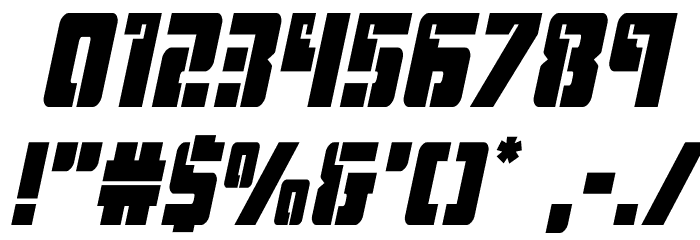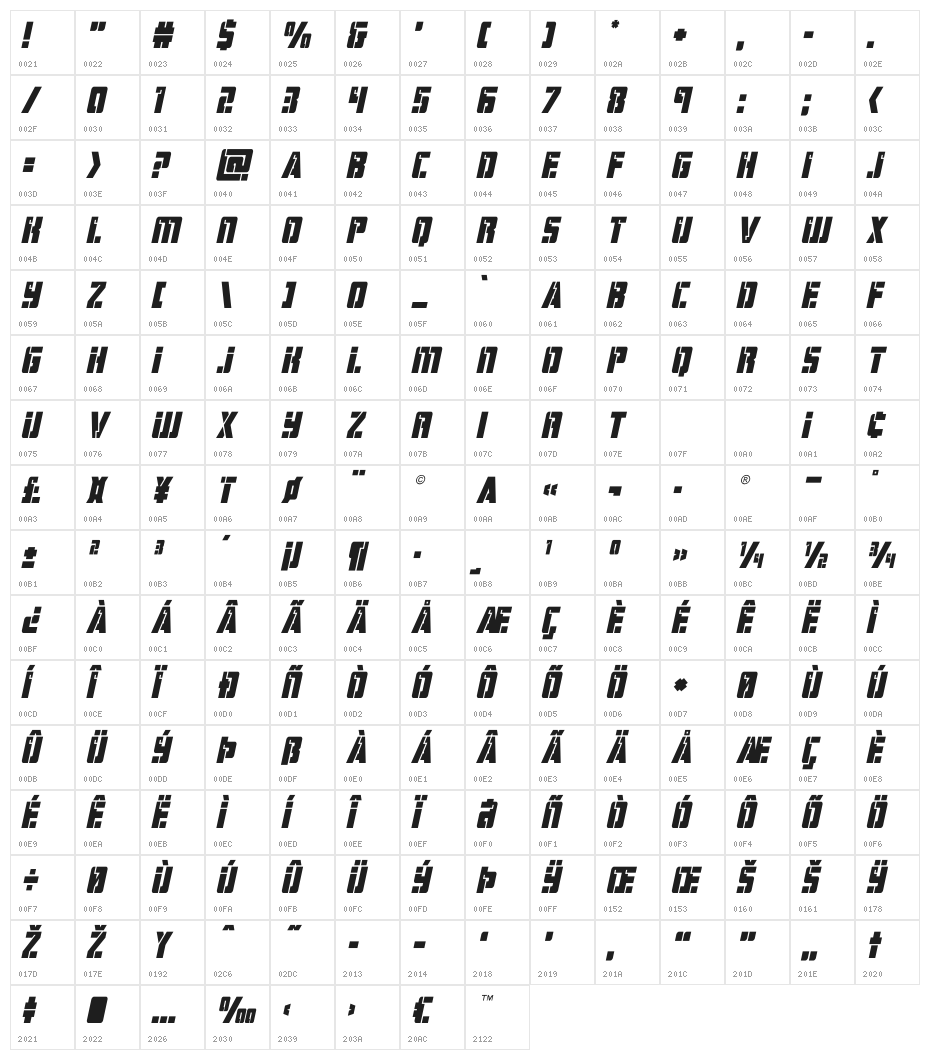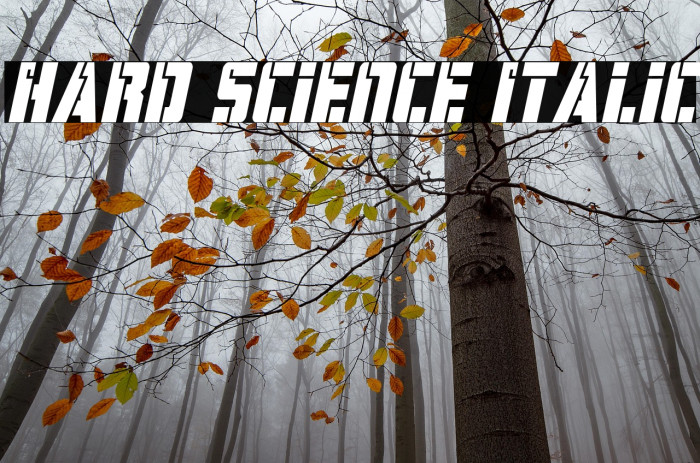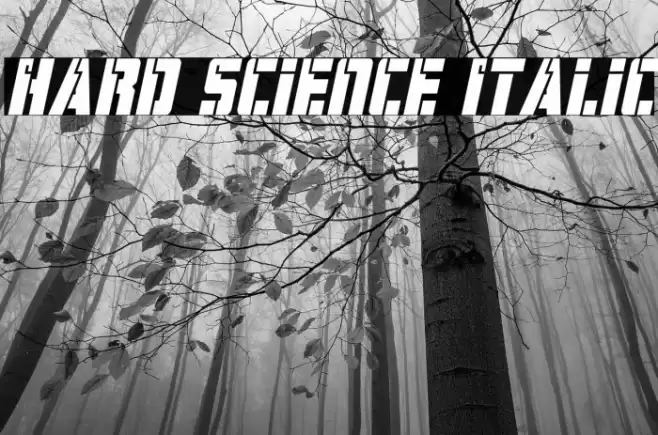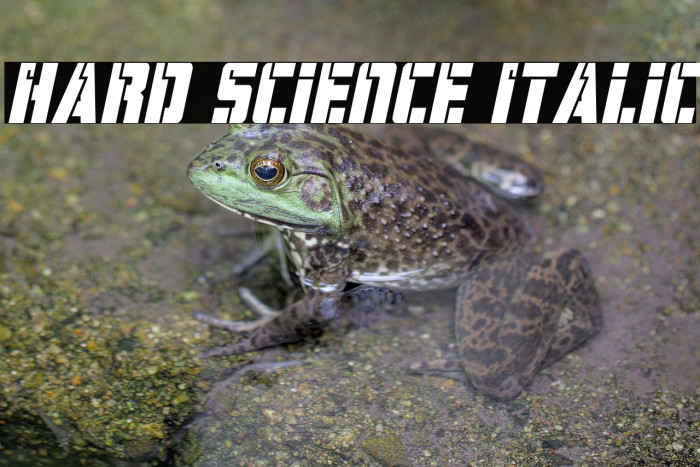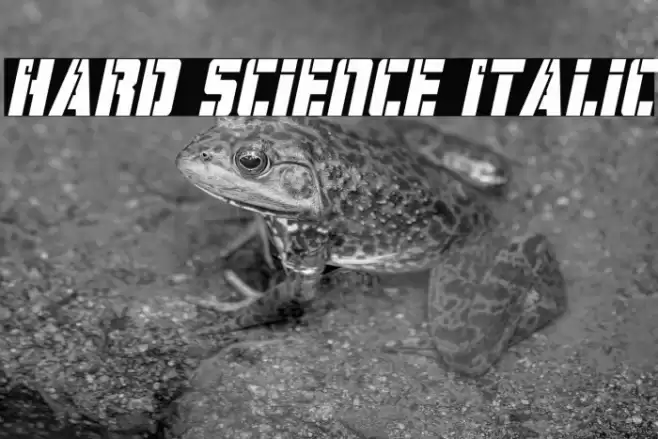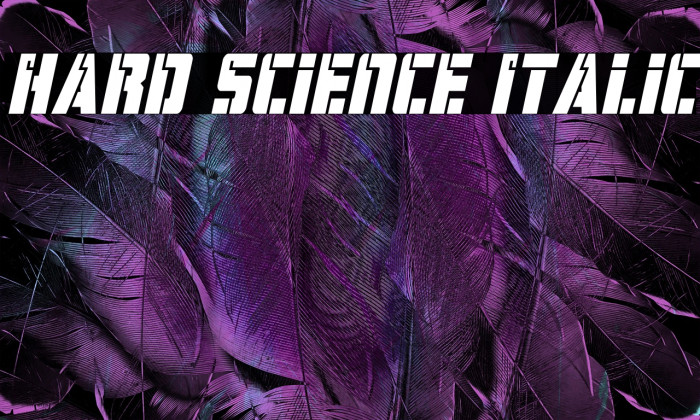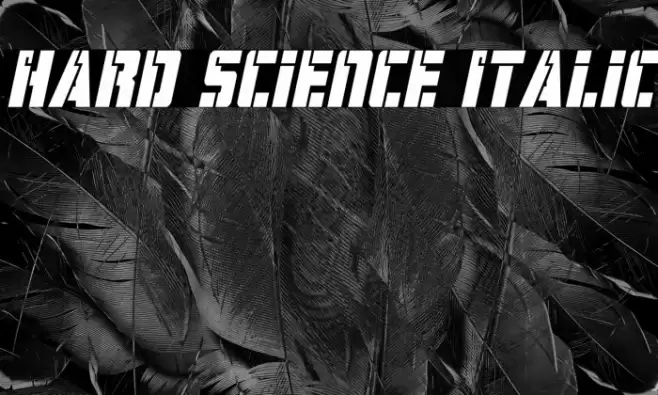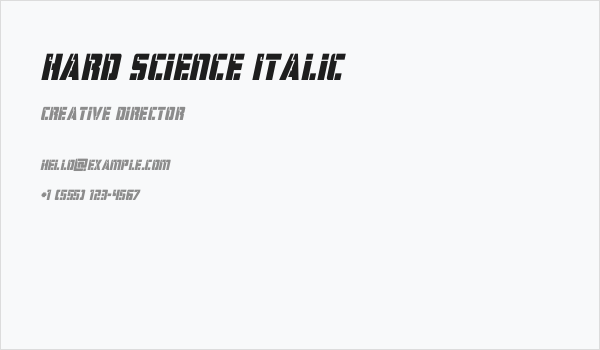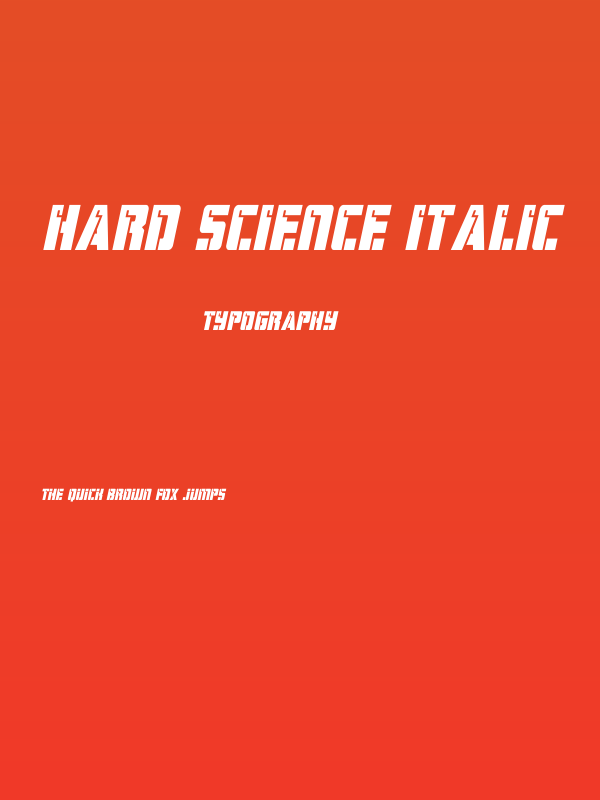
Hard Science Italic Font
Hard Science Italic Description
This font features a bold, futuristic design with a strong italic slant, giving it a dynamic and forward-moving appearance. The characters are constructed with sharp angles and geometric shapes, creating a sense of speed and modernity. The uppercase and lowercase letters maintain a consistent style, with the lowercase slightly smaller but equally impactful. Numbers and special characters are designed to match the bold and angular aesthetic, ensuring uniformity across all text elements. The font's heavy weight and italic style make it stand out, ideal for projects that require a strong visual impact.
| Proposed Projects | Ideal for sci-fi themed designs, technology branding, video game titles, and dynamic posters. |